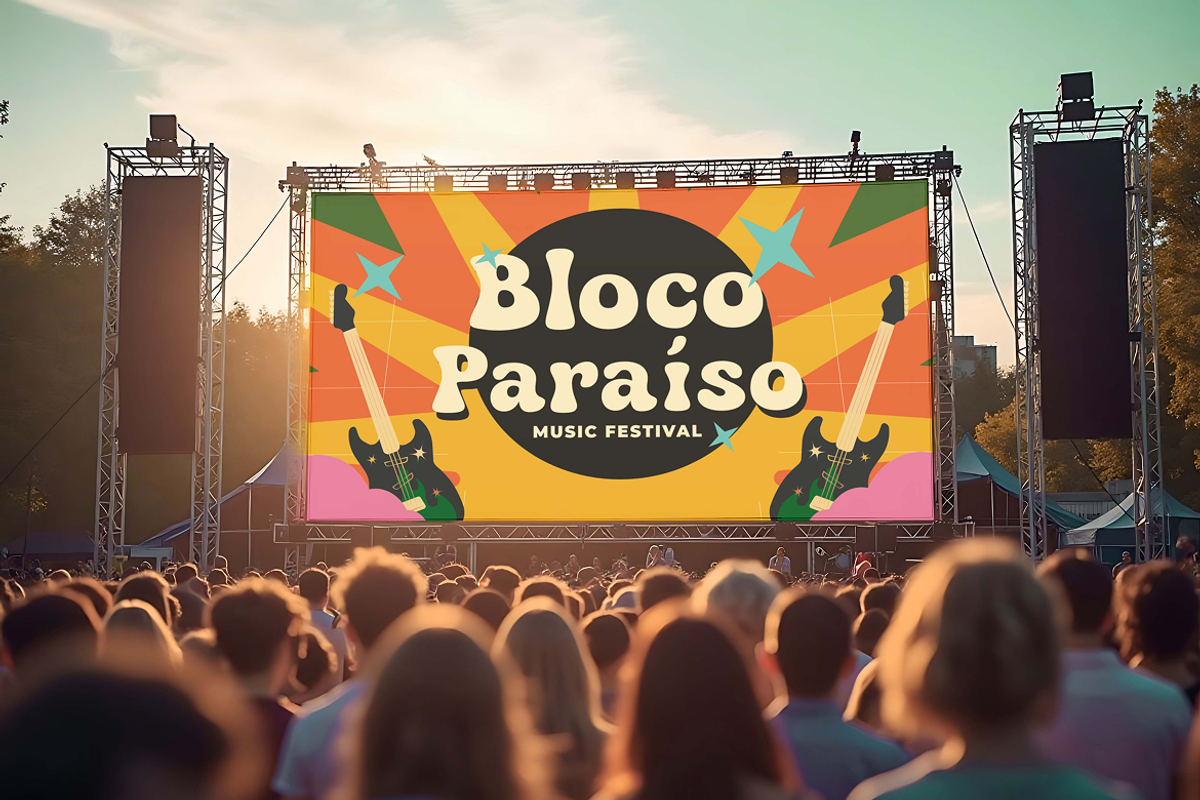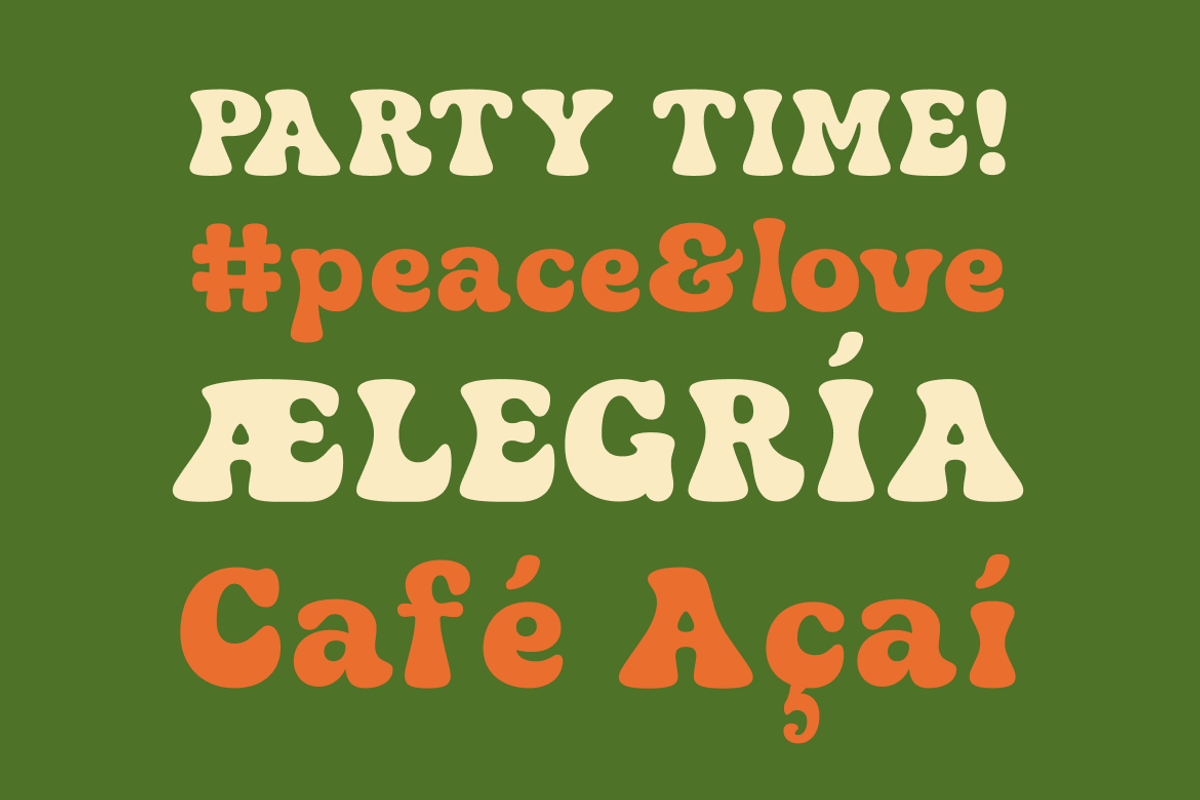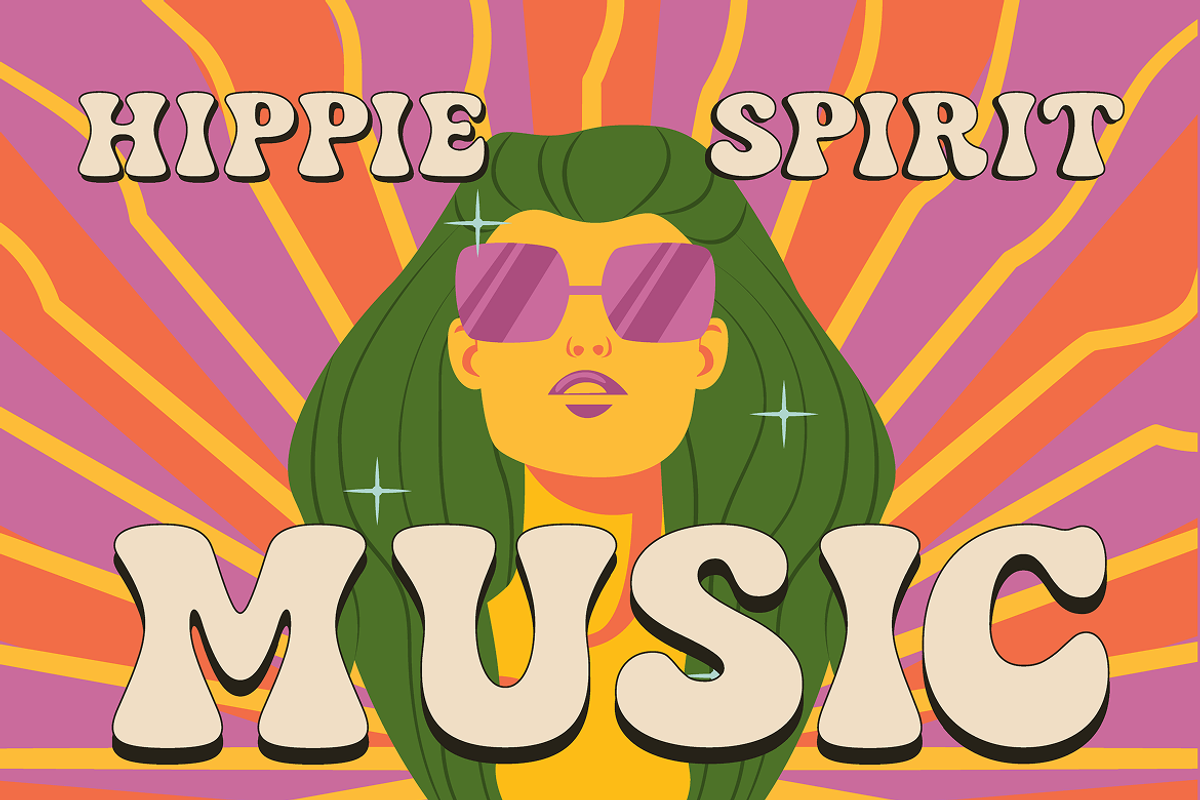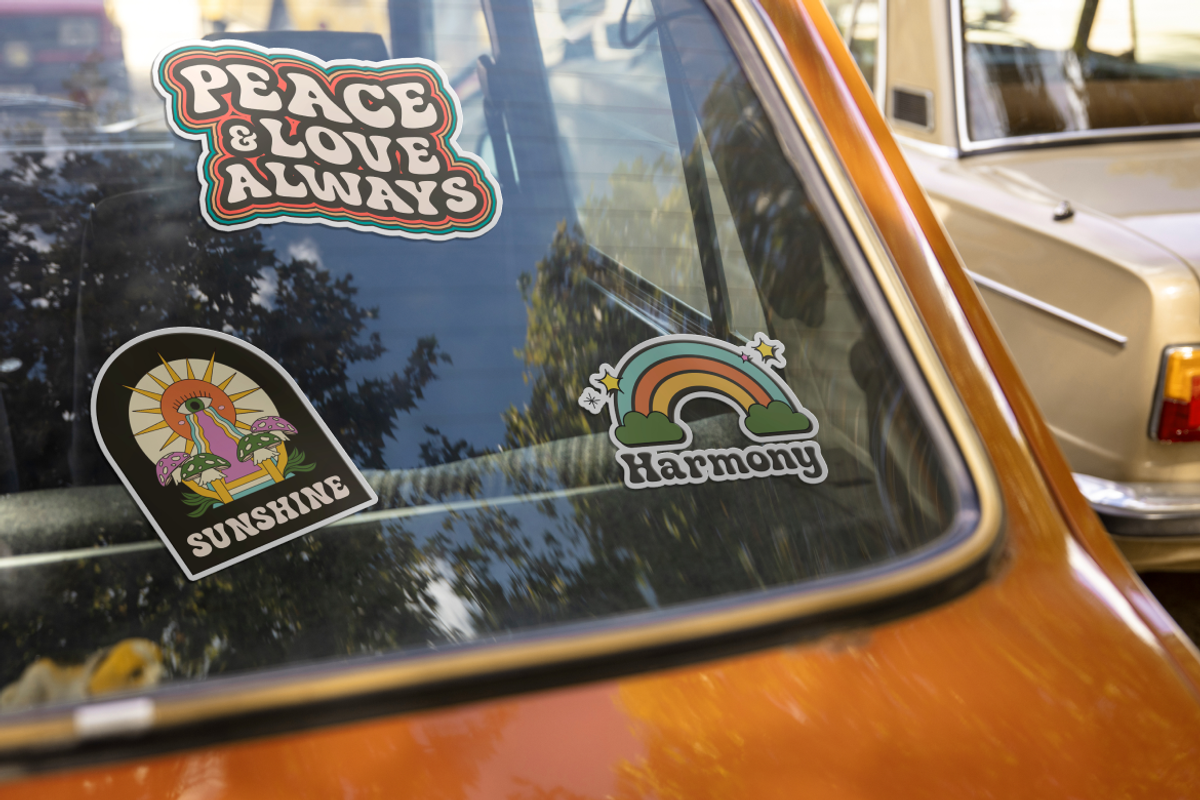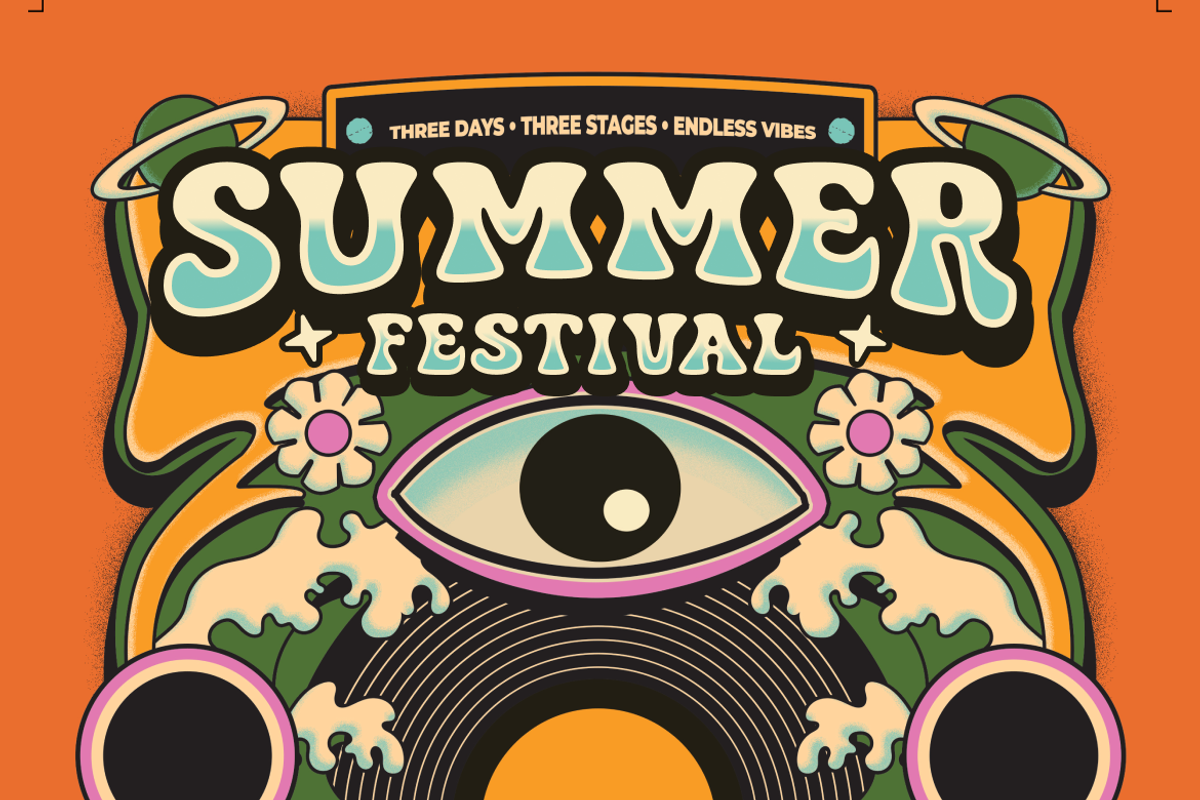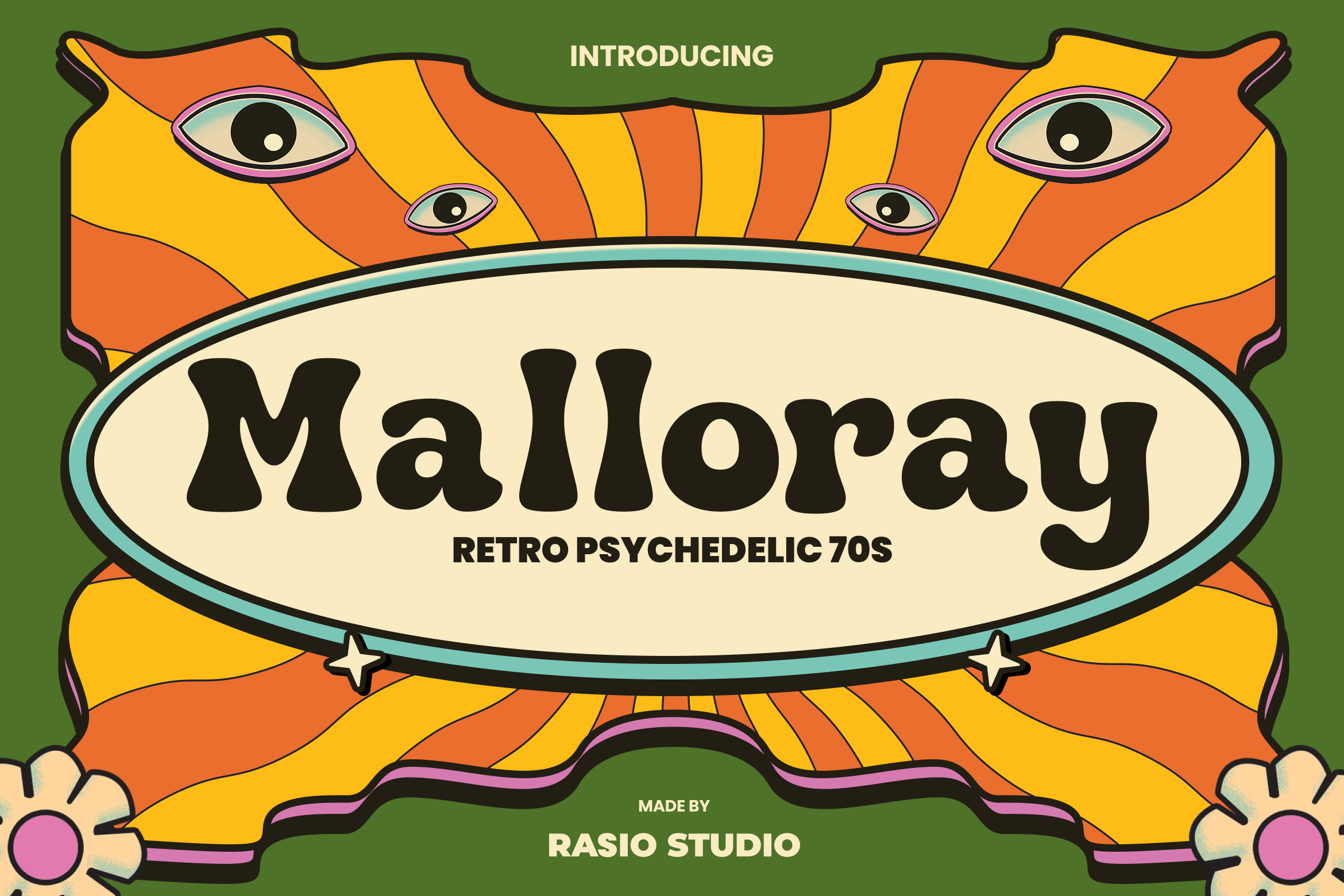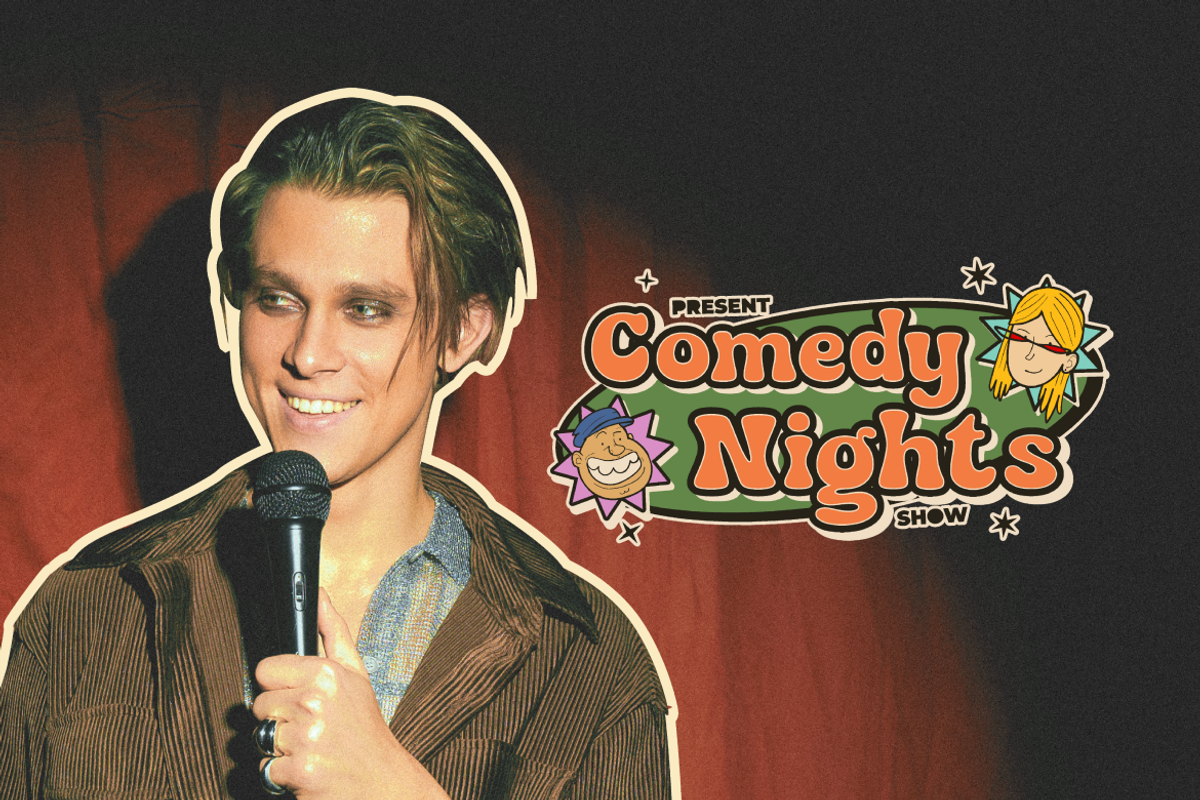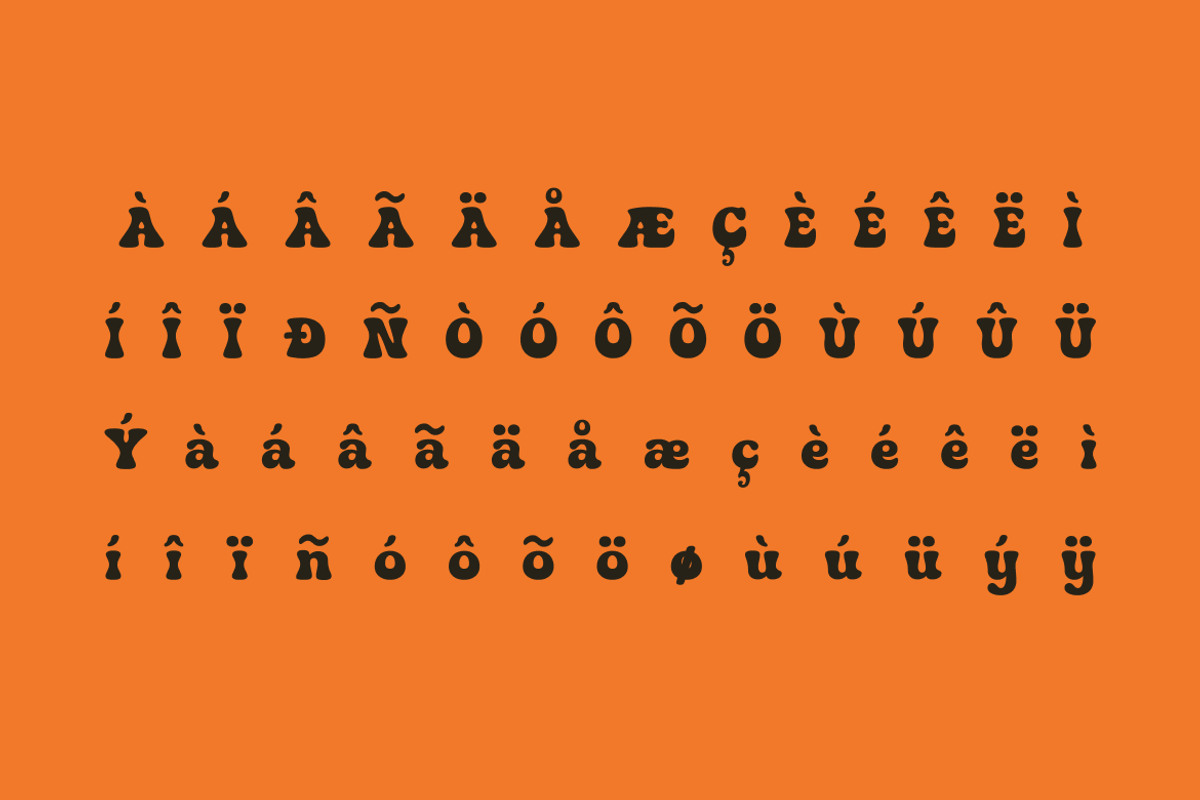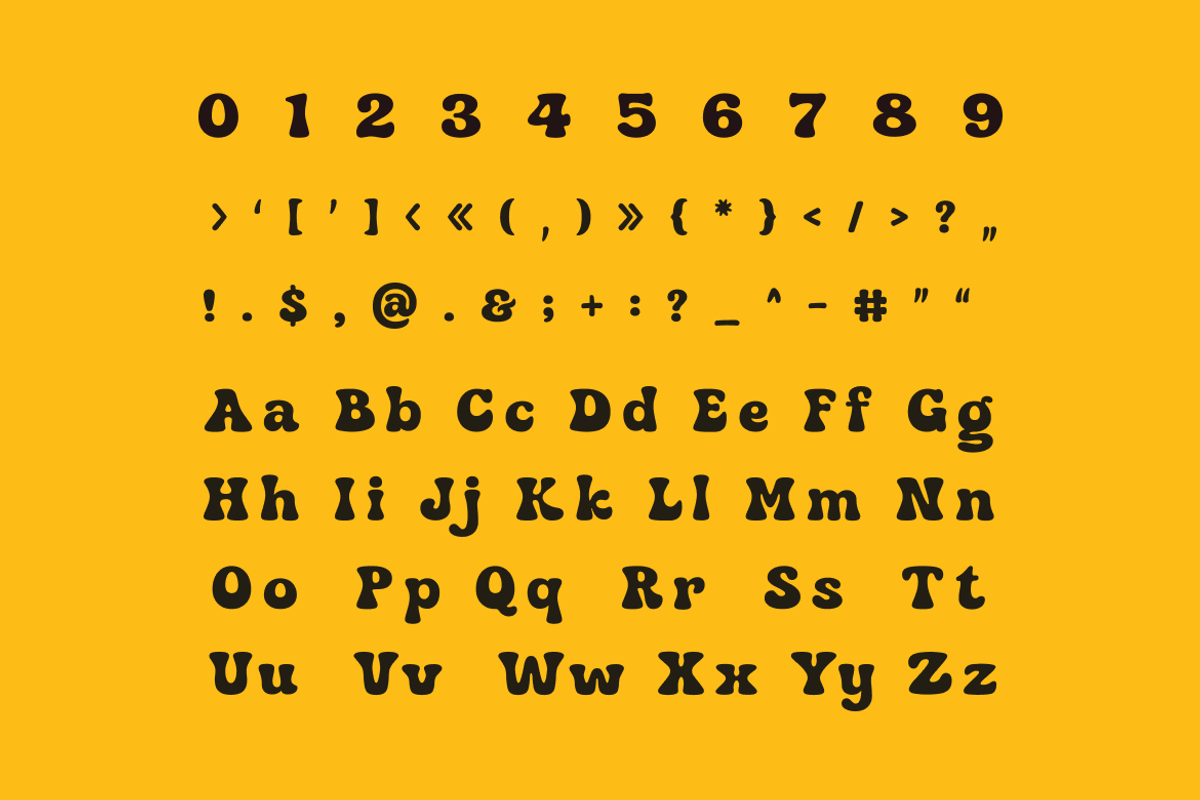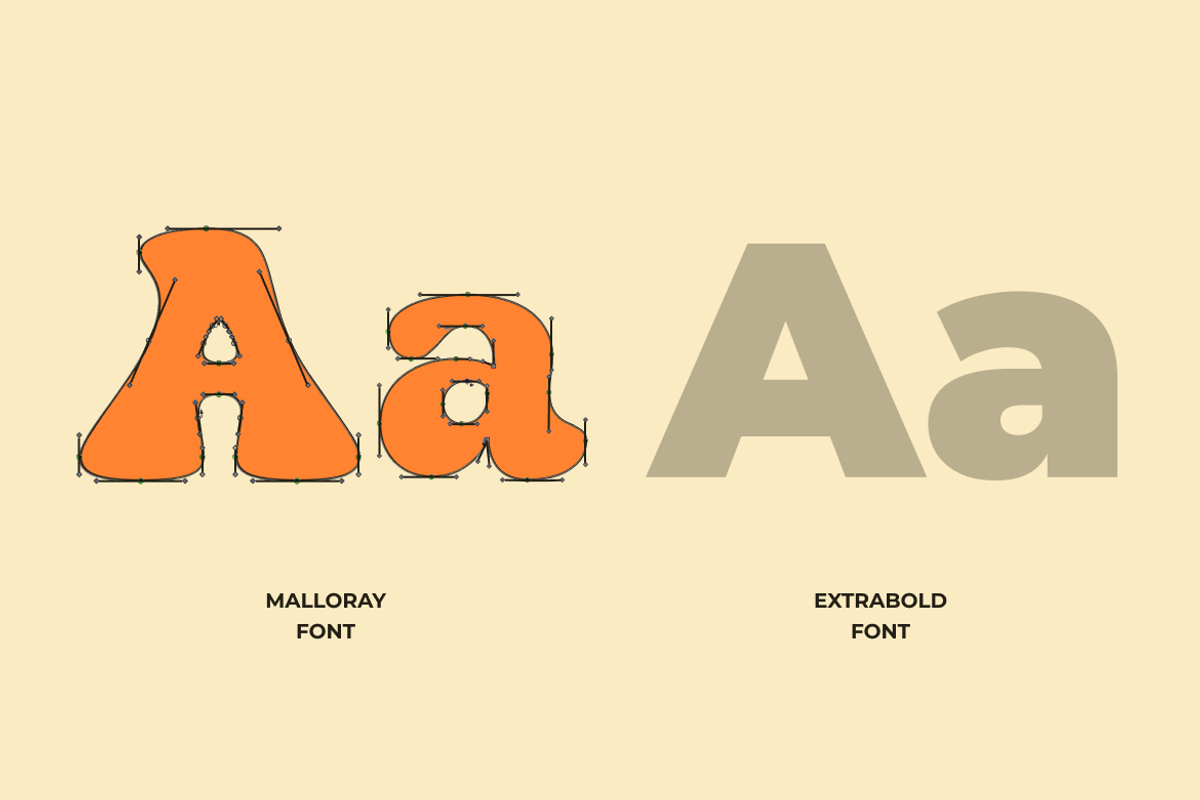
Malloray Retro Psychedelic 70's Font
Malloray is a bold retro psychedelic display font inspired by the vibrant spirit of the 1970s. Featuring chunky curves, groovy letterforms, and playful counter shapes, this typeface brings a nostalgic yet expressive character to any layout. The font includes uppercase, lowercase, numbers, and punctuation, carefully crafted to maintain consistency across headlines and decorative compositions.
Malloray is highly relevant for creative projects that aim to capture a retro 70s psychedelic vibe. It works perfectly for music festival posters, vintage-inspired branding, café and merchandise logos, album covers, retro packaging, apparel graphics, and bold social media visuals. Its strong personality makes it ideal for headlines and statement typography where visual impact is essential.
- Bold psychedelic letterforms inspired by 1970s retro and hippie typography
- Soft, inflated shapes with exaggerated curves for a playful and expressive feel
- Thick strokes with organic contours that create strong visual impact
- Rounded edges and uneven details that enhance the groovy, hand-crafted character
- Display-focused proportions designed for headlines, posters, and decorative layouts
- Retro-inspired branding for lifestyle, music, and creative businesses
- Vintage poster designs, festival graphics, and 70s-themed events
- Album covers, band merchandise, and psychedelic artwork
- Bold packaging for coffee, craft products, or handmade goods
- Social media content, stickers, and playful digital campaigns